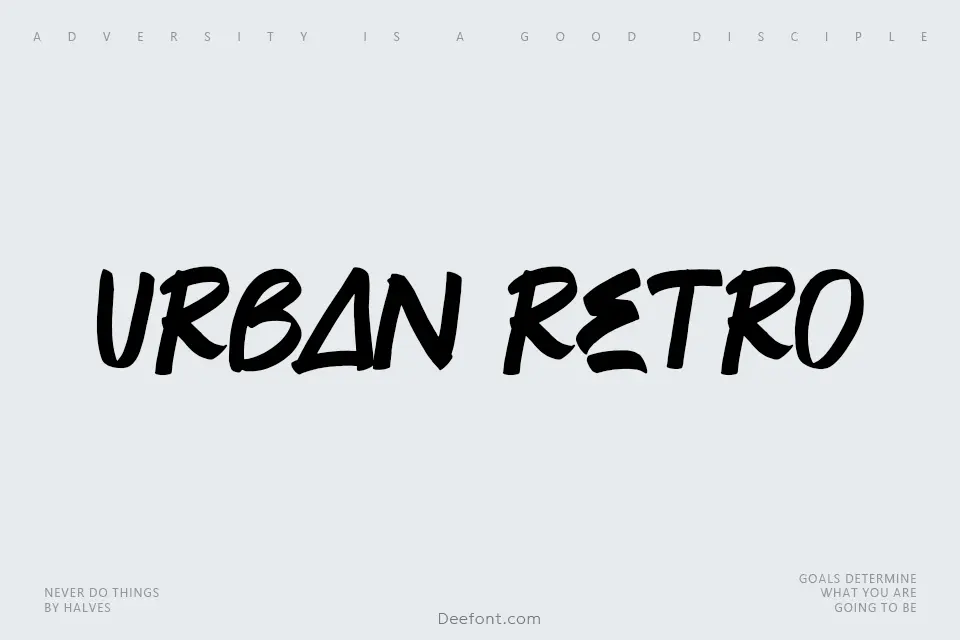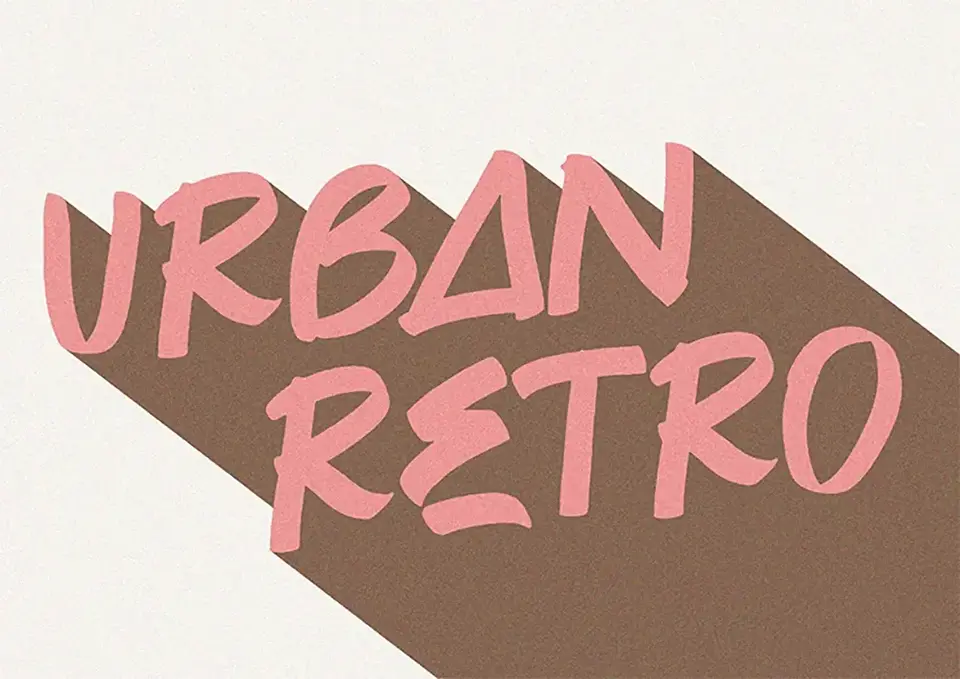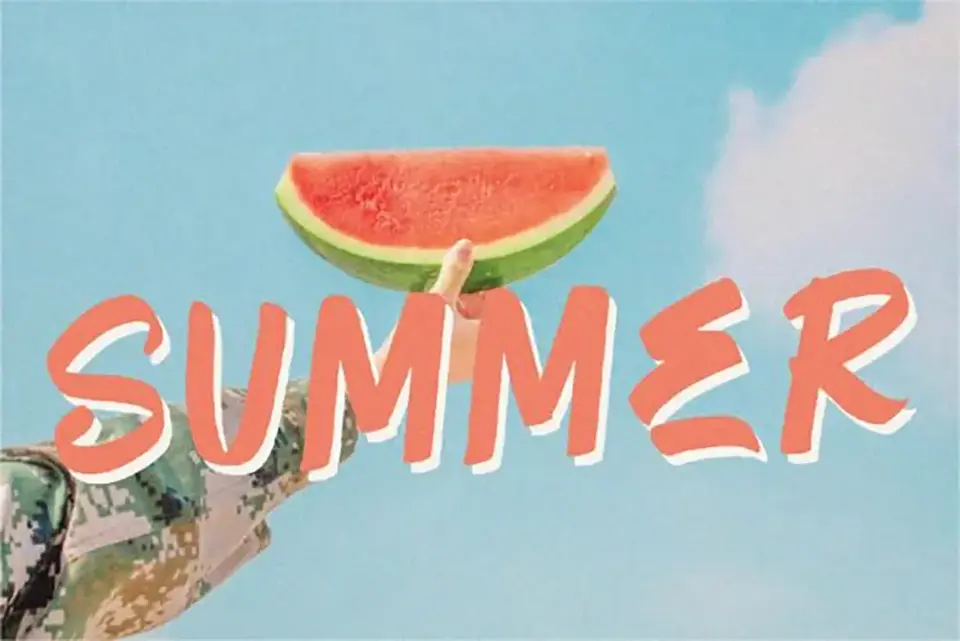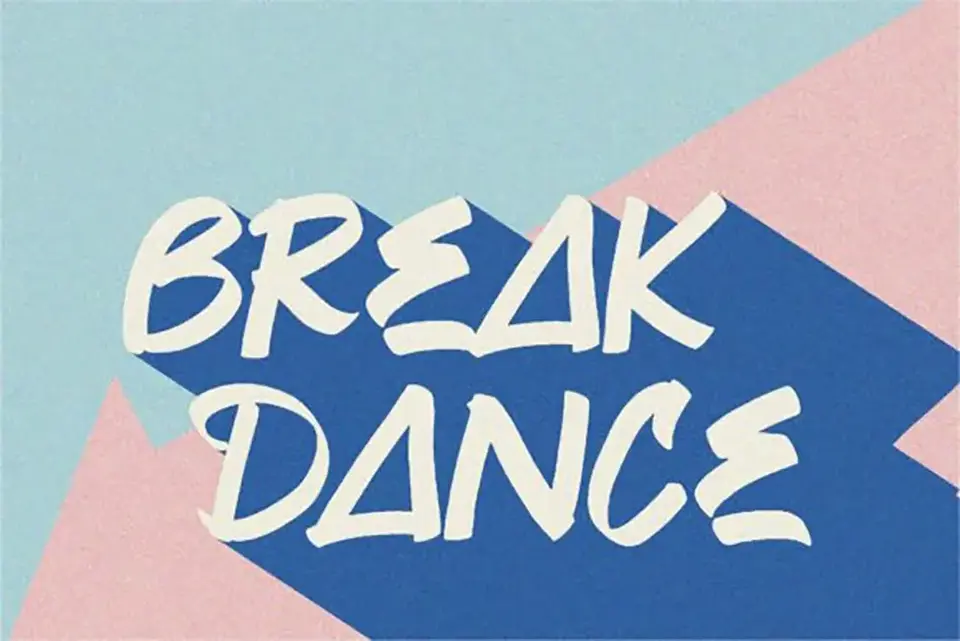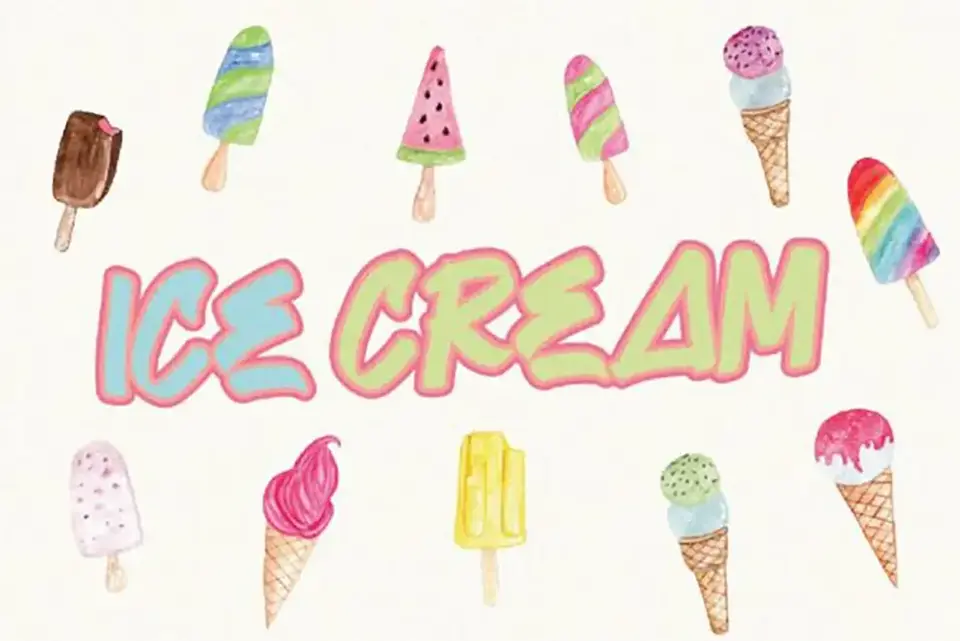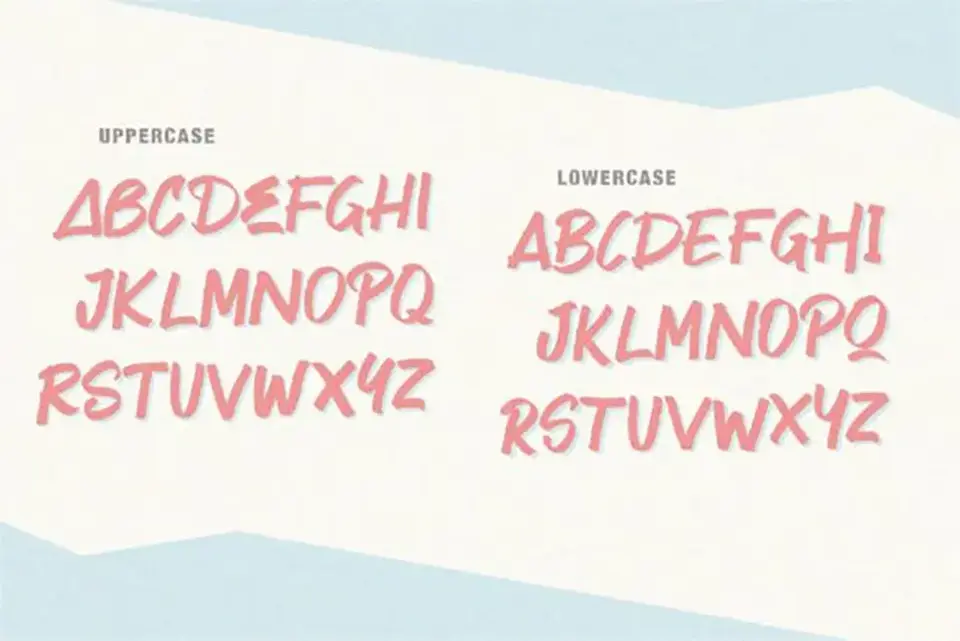
Urban Retro Font
Urban Retro is a captivating script typeface inspired by 1980s and 1990s design aesthetics, featuring bold, expressive letterforms with graffiti and street art influences. This demo version showcases beautiful typographic harmony perfect for logos, branding, social media posts, advertisements, and product designs that demand a vintage urban edge. The font’s energetic style makes it an ideal choice for creative projects seeking retro vibrancy and nostalgic appeal.